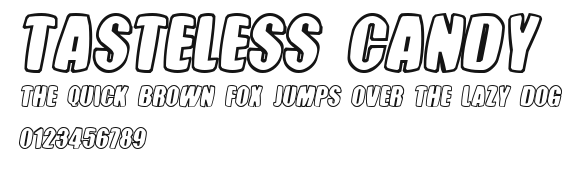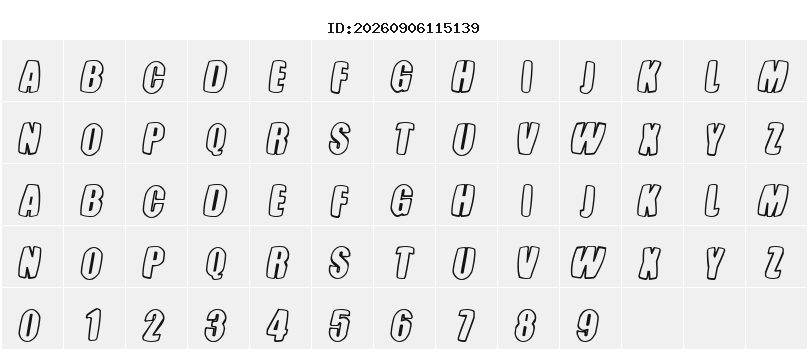
Tasteless Candy Preview
• Font Name: Tasteless Candy
• Font ID: Tasteless Candy
• Full Font Name: Tasteless Candy
• PostScript Name: TastelessCandy
• Character Count: 86
About Tasteless Candy.ttf
Tasteless Candy.ttf is a modern, elegant sans-serif font designed for ultimate readability and visual harmony. Perfect for branding, headlines, web design, and print materials.